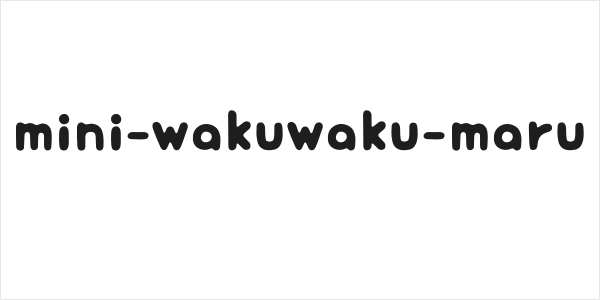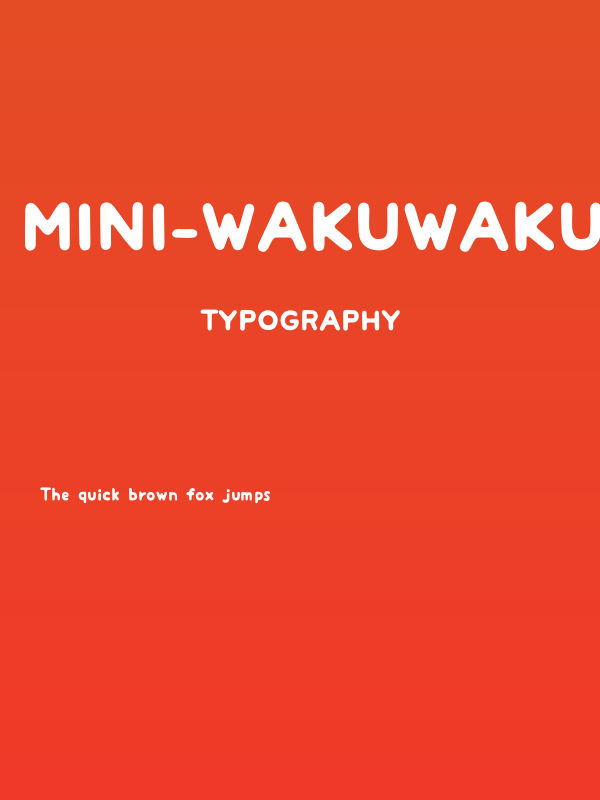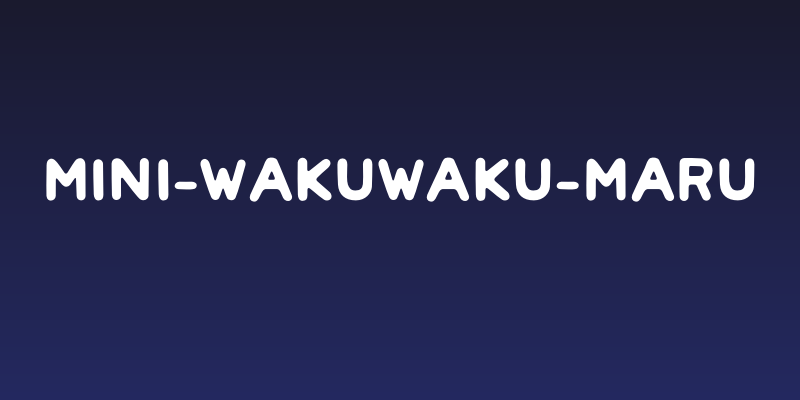
mini-wakuwaku-maru Font
mini-wakuwaku-maru Description
This playful and rounded font features bold, smooth curves and a friendly appearance. Each character is designed with a consistent thickness, giving it a uniform and approachable look. The letters are slightly condensed, enhancing readability while maintaining a whimsical style. The font's rounded edges and soft shapes make it ideal for projects that require a fun and inviting tone. Its simplicity and clarity ensure that it remains legible even at smaller sizes, making it versatile for various applications.